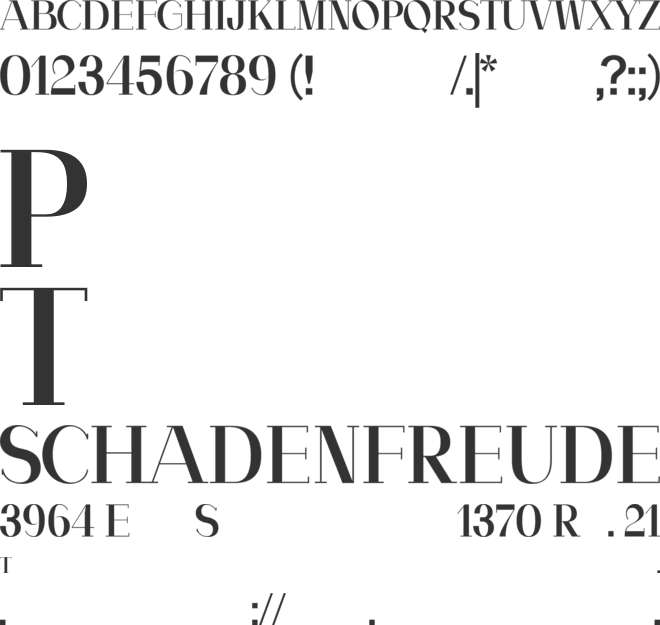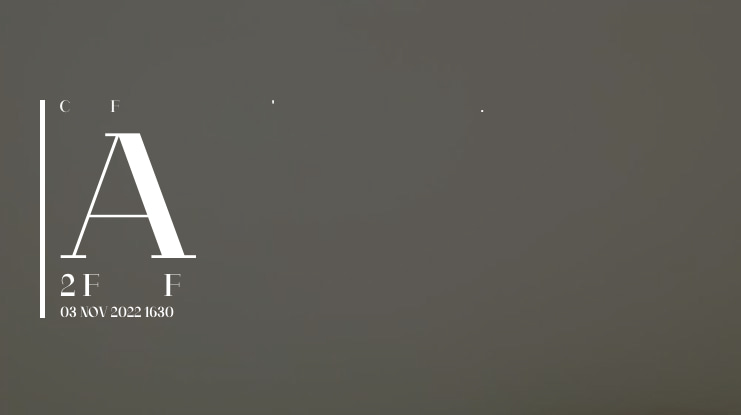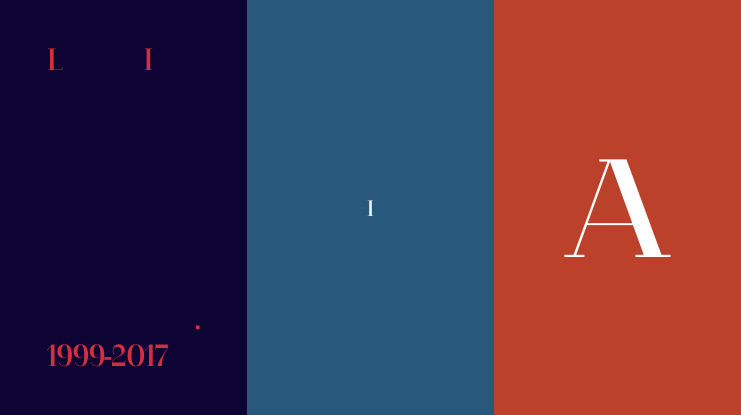
Amore 2 Font
🎨 Font Name: AMORE by Minimalist Art Studio
🎨 Font Description: Amore is a romantic decorated slab serif with ornate charm and multilingual support, ideal for heartfelt branding and poetic design.